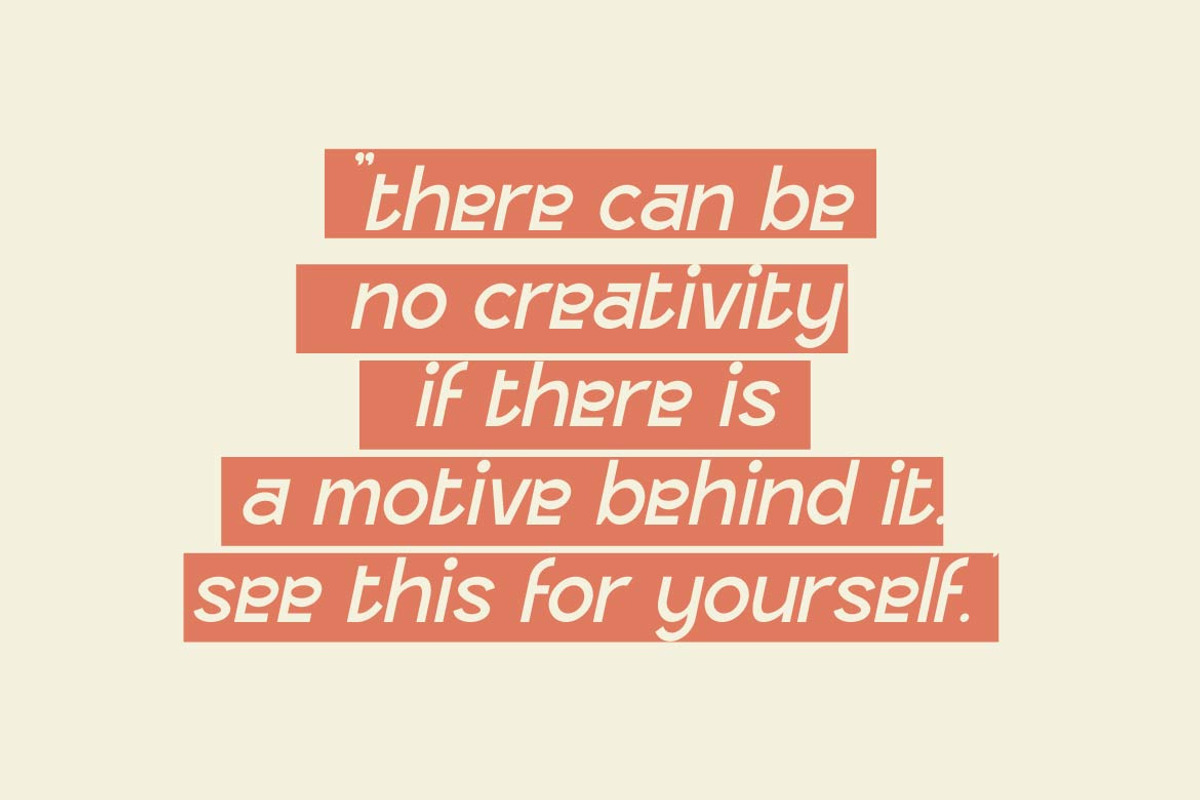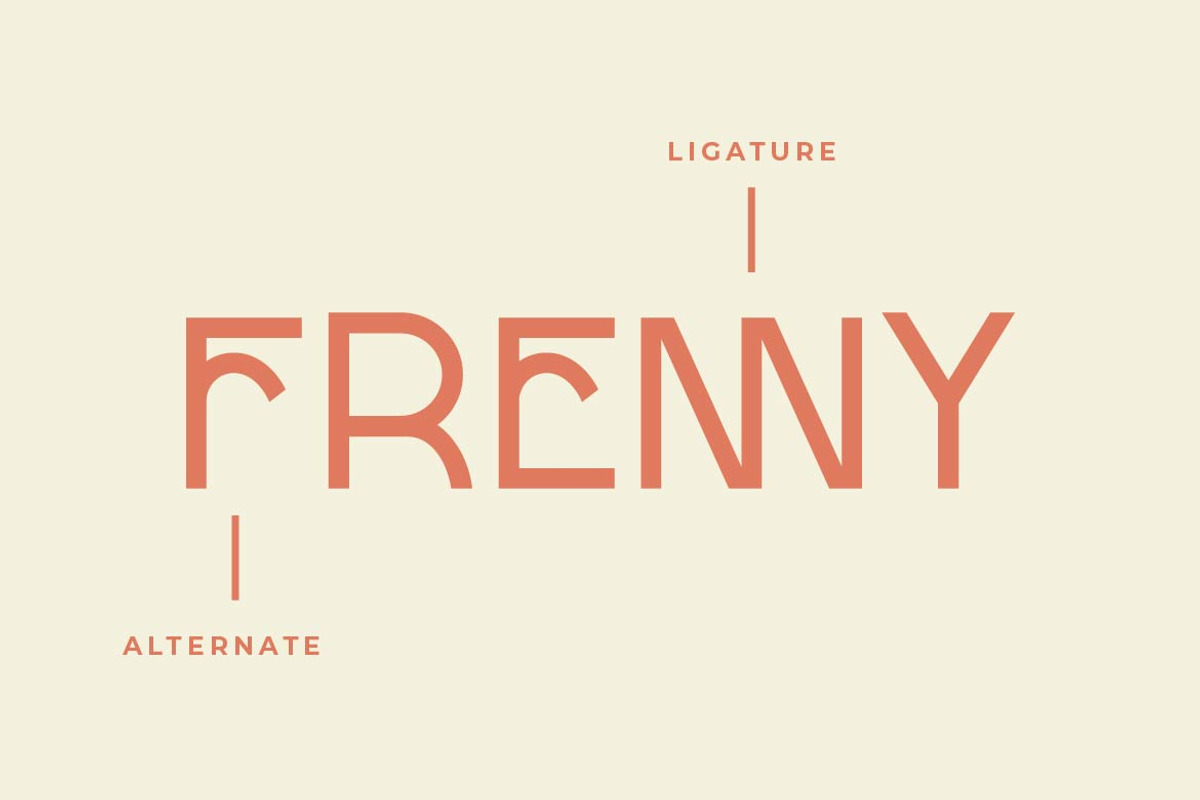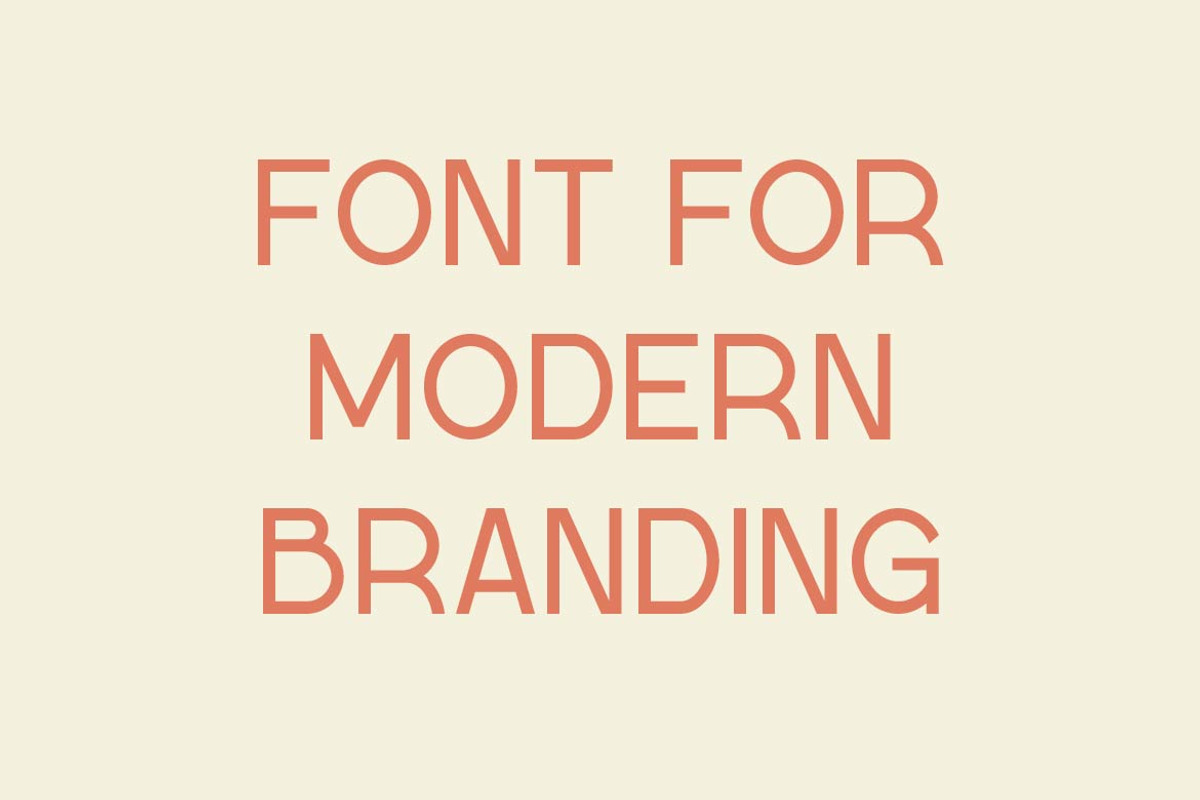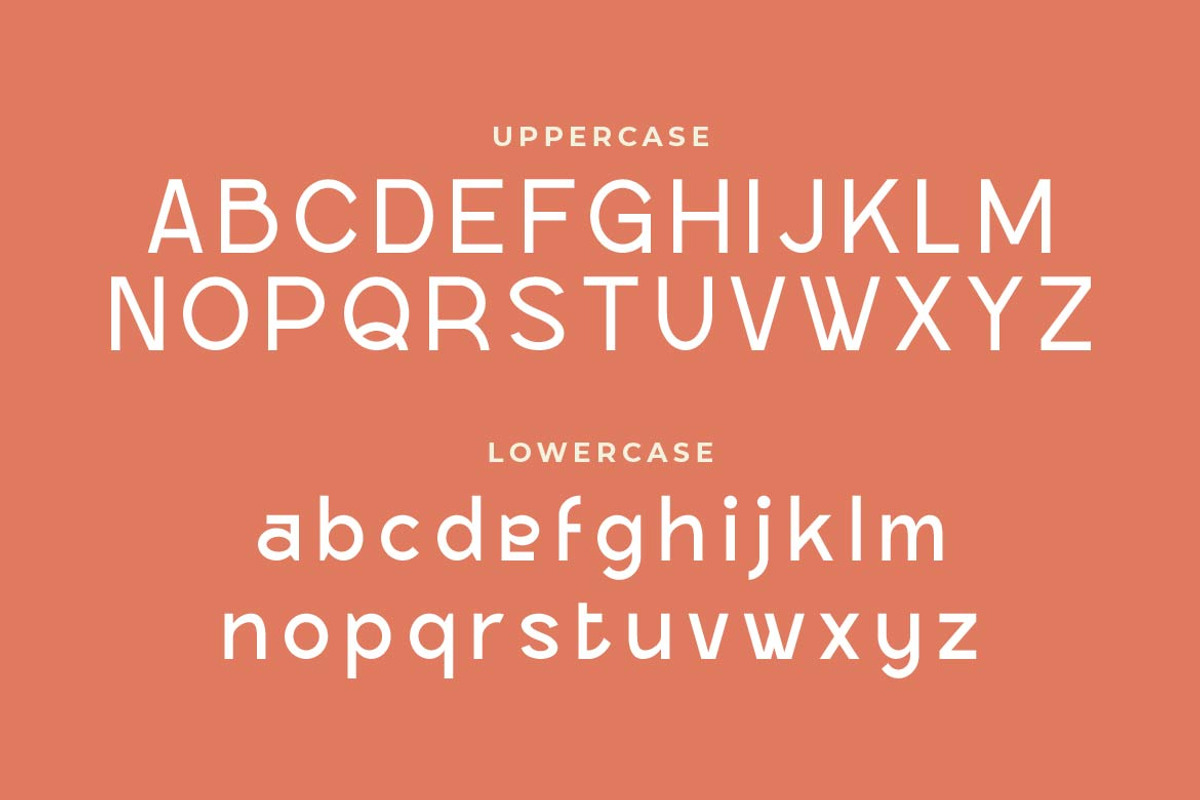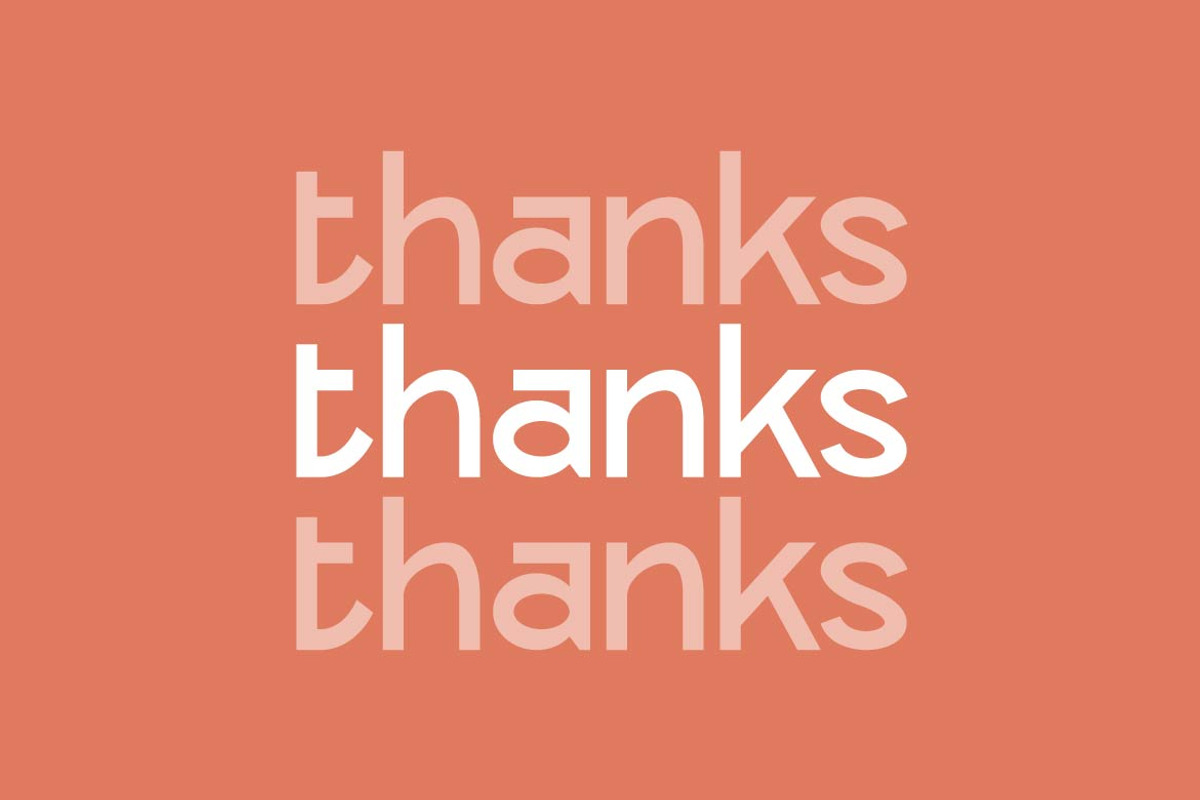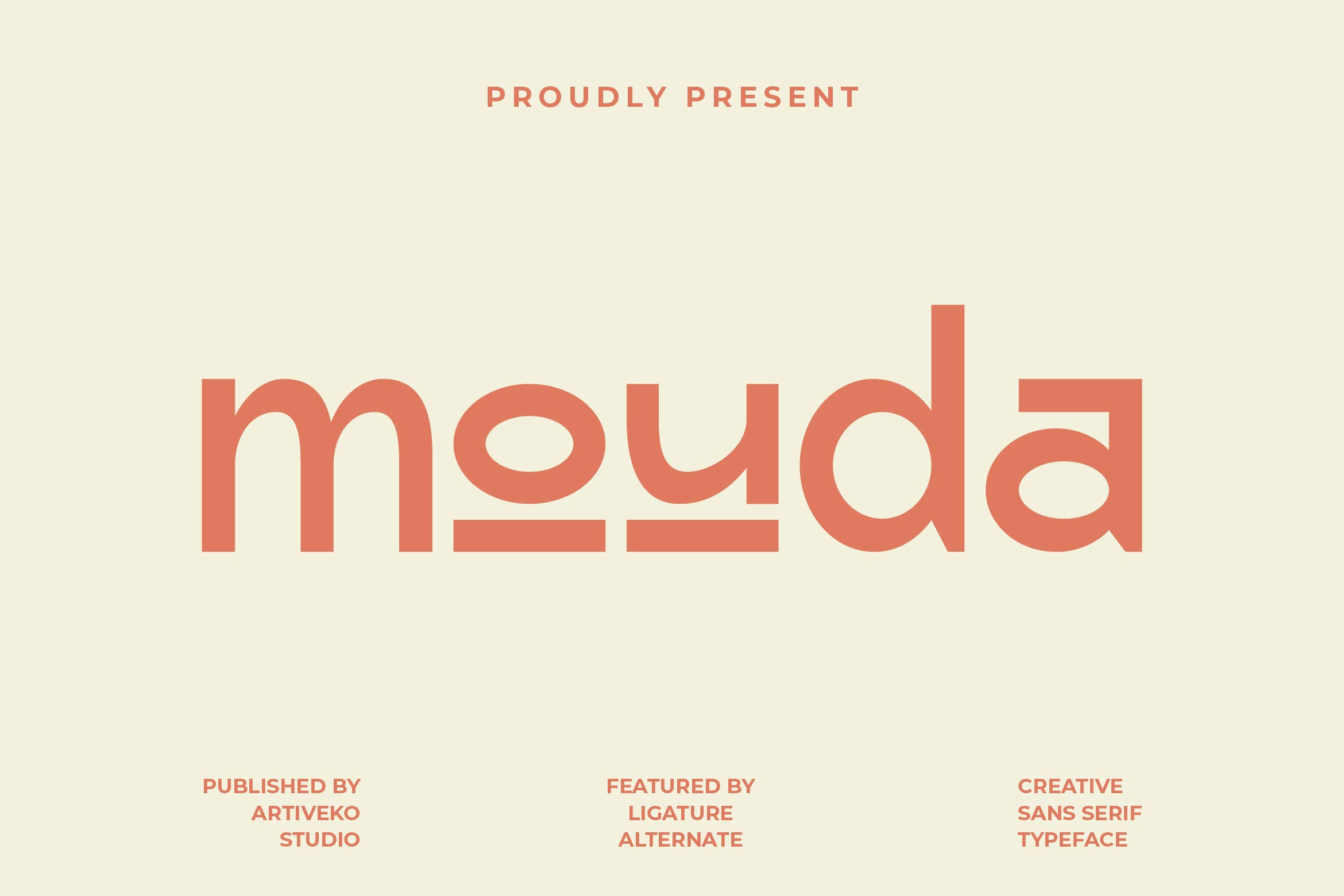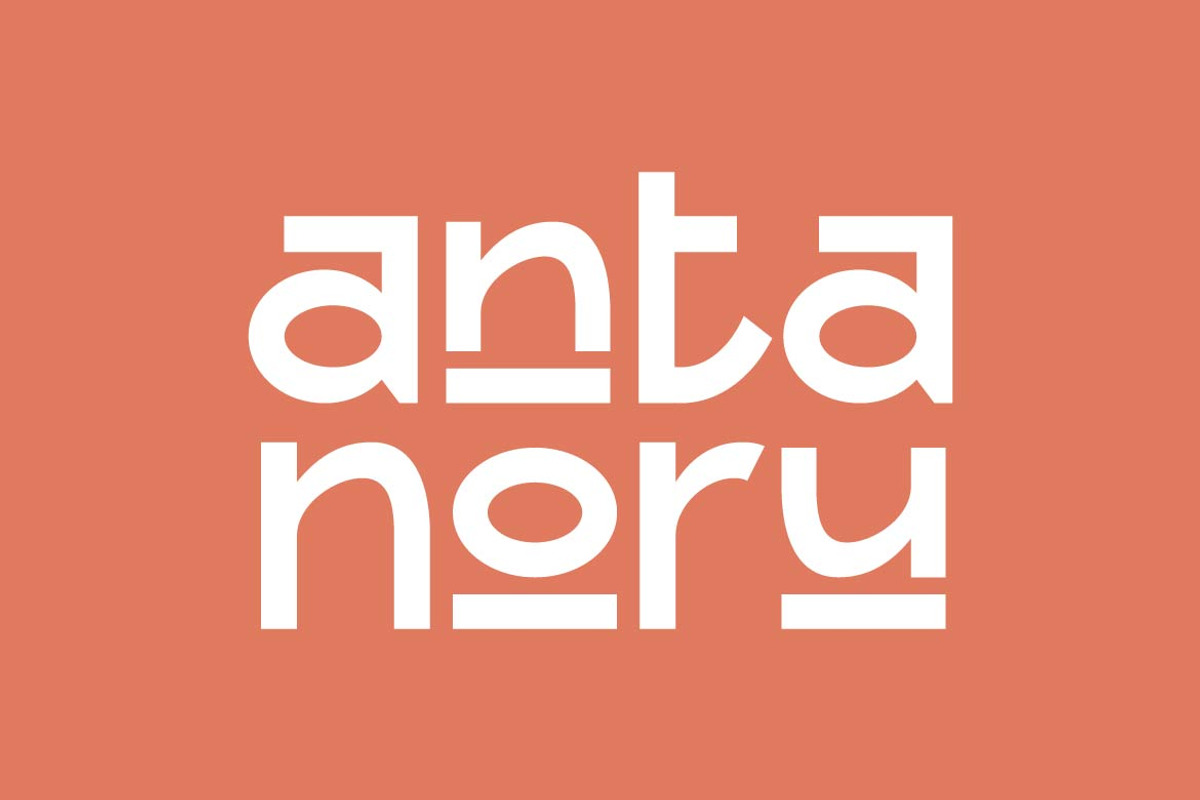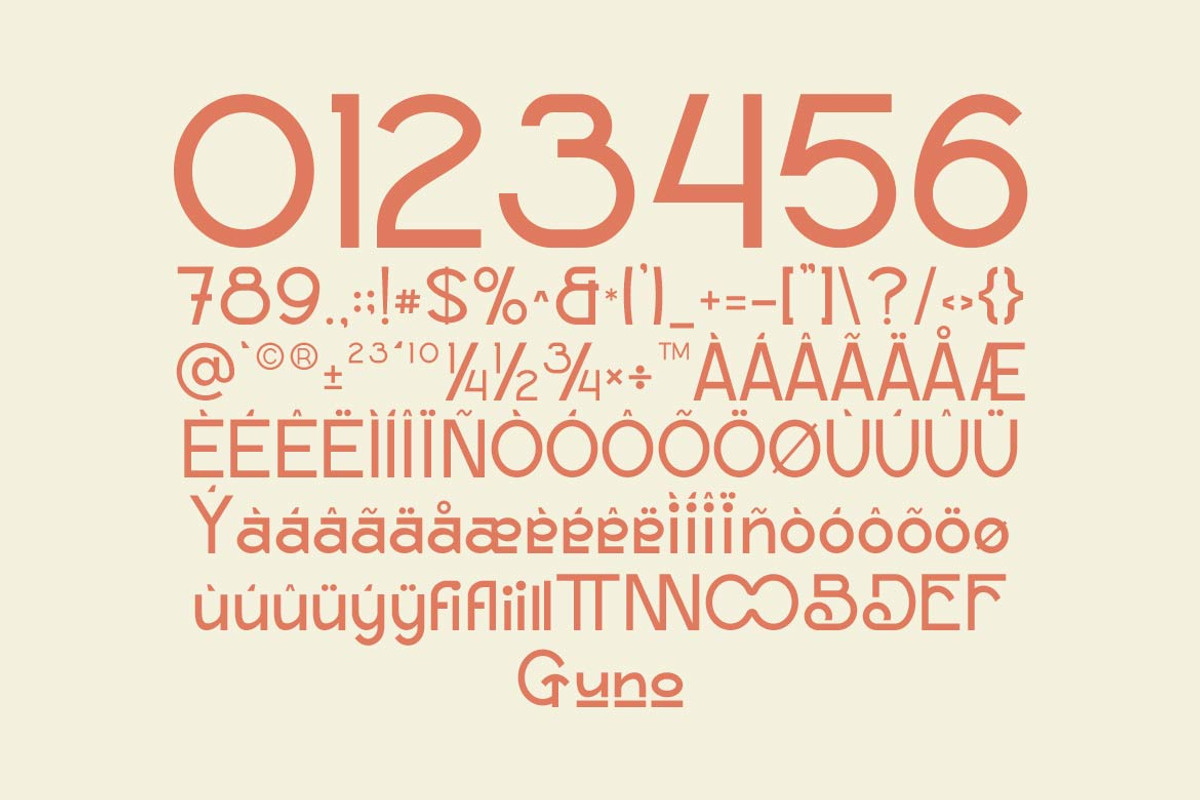
Mouda Elegant Sans Font
Mouda is a fresh and expressive sans serif font that blends clean structure with creative spirit. Designed with subtle quirks and smooth curves, Mouda offers a contemporary look that’s perfect for branding, editorial layouts, logos, packaging, and digital design that needs personality without losing professionalism.